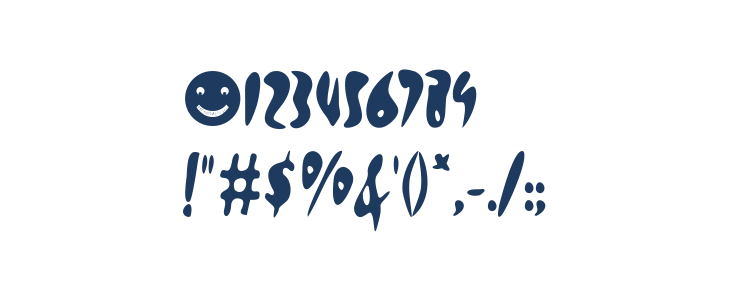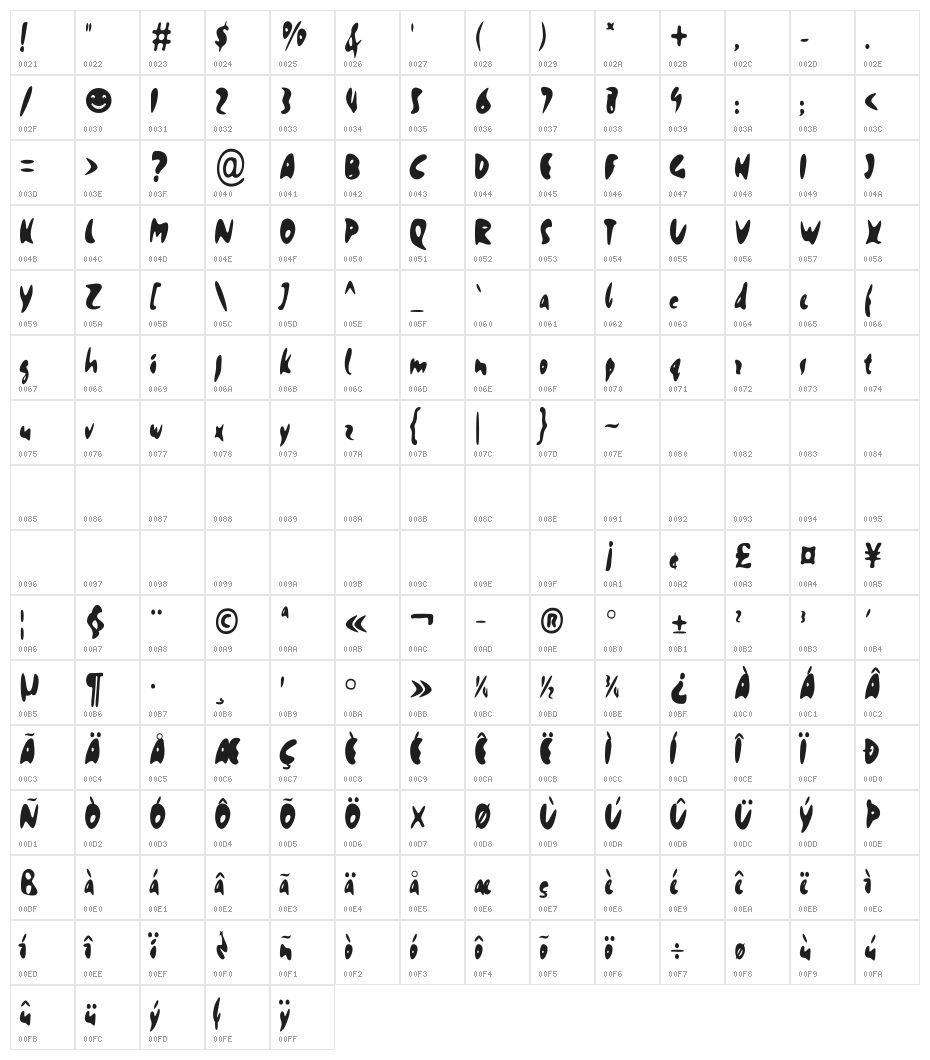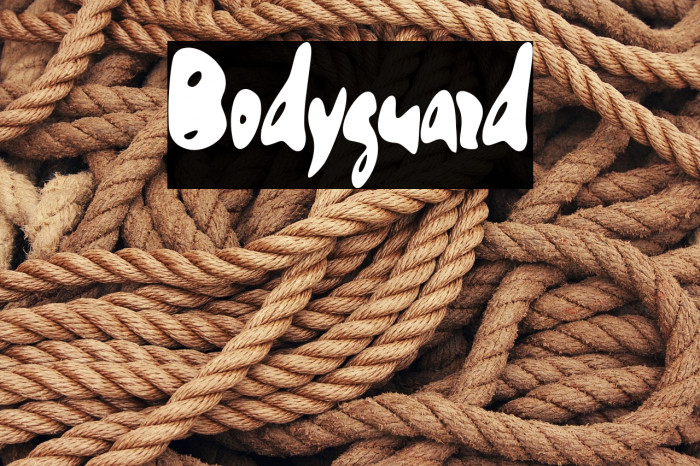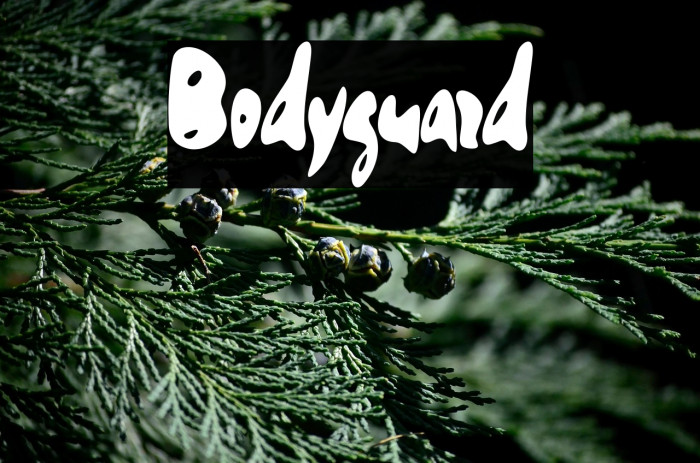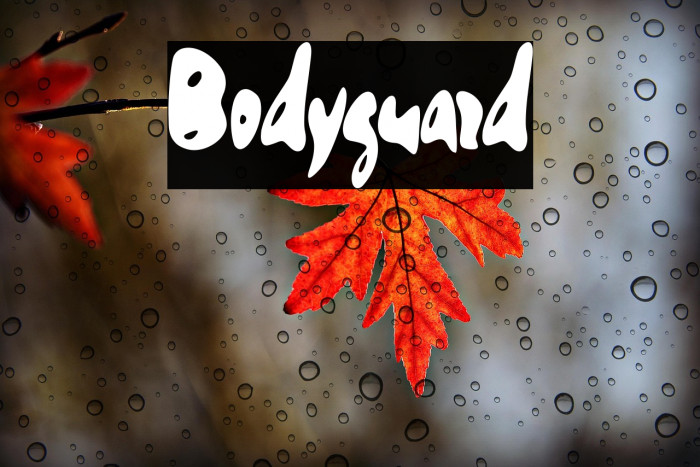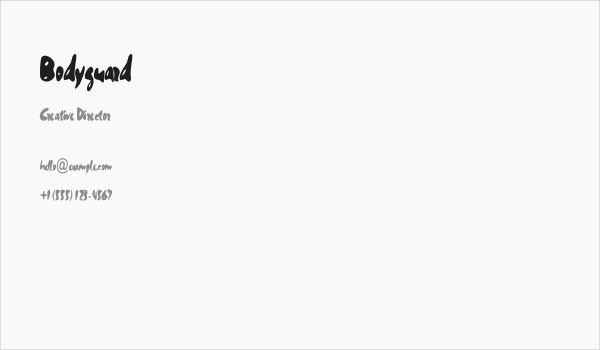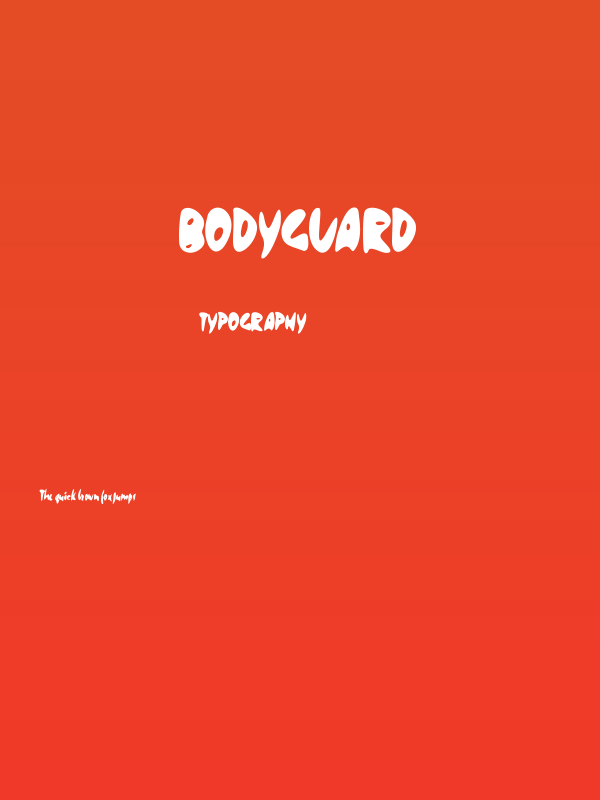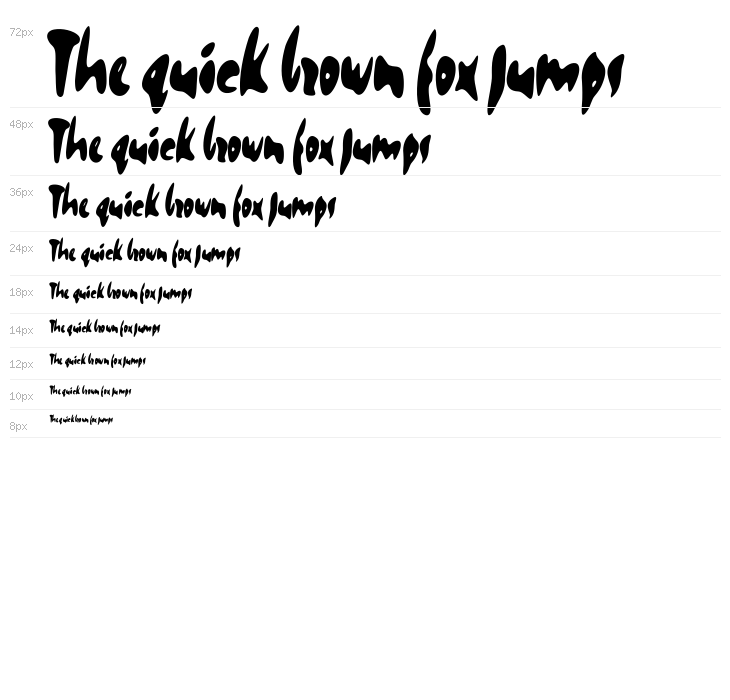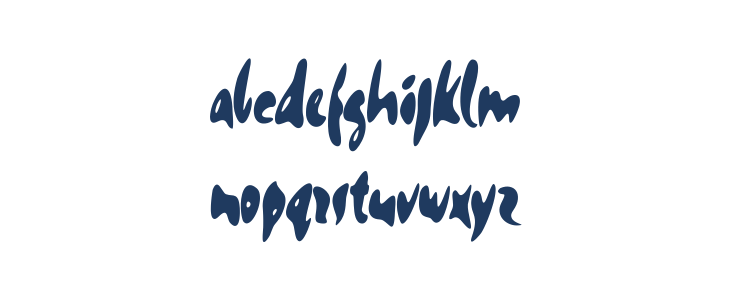
Bodyguard Font
Bodyguard Description
This font features a bold, playful style with a unique, organic shape to each character. The letters have a fluid, almost liquid appearance, with rounded edges and varying thickness that give it a dynamic and lively feel. The uppercase and lowercase letters maintain a consistent style, while the numbers and special characters complement the overall design with their quirky and expressive forms. The font's whimsical nature makes it stand out, making it ideal for creative and informal projects.
| Overall Style | Playful, Whimsical |
| Use Case | Logos, Posters, Creative Projects |
| Proposed Projects | Ideal for children's books, playful branding, creative posters, and informal event invitations. |